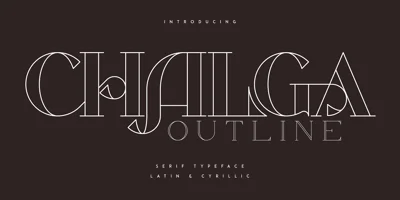
Chalga VPoutline Font
The Chalga VPoutline Font excels in various design applications including Balkan music festival branding, Eastern European cultural celebrations, folk music album artwork, traditional dance event promotions, ethnic restaurant signage, cultural heritage materials, vibrant nightclub communications, Balkan diaspora community events, folkloric festival marketing, and energetic cultural projects that demand Balkan vibrancy and outlined sophistication.
What makes the Chalga VPoutline Font exciting is its vibrant embodiment of Balkan musical culture and festive energy through outlined letterforms that capture the essence of chalga music's rhythmic intensity and the celebratory spirit of Eastern European folk traditions. This typeface demonstrates exceptional cultural character through carefully crafted outlined letters that suggest the energetic movement of traditional folk dances, the passionate vocals of Balkan singers, and the festive atmosphere that defines chalga music culture. The font's outlined personality makes it perfect for cultural organizations and entertainment venues seeking to communicate Balkan authenticity, musical celebration, and the kind of infectious energy that makes Eastern European folk culture so compelling through typography that literally dances with outlined vibrancy.
The Chalga VPoutline Font family typically includes festive weight variations with distinctive outline treatments that enhance the cultural aesthetic, featuring energetic styling options and extended character sets supporting Cyrillic and Latin alphabets for authentic Balkan communications. These family options often include folkloric alternates, cultural symbols, and traditional decorative elements that provide designers with comprehensive tools for creating authentically Balkan typography that celebrates Eastern European musical heritage while maintaining contemporary design appeal and cultural sensitivity.
Cultural event organizers and Balkan music professionals consistently choose Chalga VPoutline Font for projects requiring typography that communicates authentic Balkan culture and musical celebration. This typeface delivers exceptional performance in cultural marketing, music branding, and ethnic communications where establishing cultural credibility and creating festive atmosphere is essential for community engagement. The font's outlined character makes it particularly effective for dance and festival applications. Download Chalga VPoutline Font today to access this culturally rich typeface that transforms Balkan communications with its outlined energy and folkloric sophistication, creating compelling cultural experiences that honor the magnificent traditions of Eastern European music while celebrating the infectious joy that makes chalga culture so irresistibly festive.